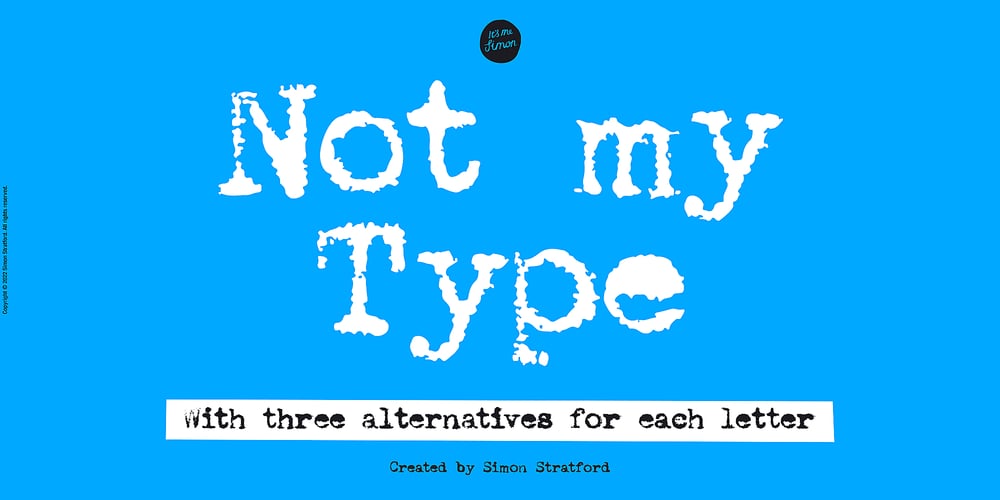
Not My Type
Not My Type font
Not My Type Font Family was designed by Simon Stratford and published by It’s me Simon. Not My Type contains 1 styles and family package options. If you want your design to have that nostalgic typewriter effect, Not my Type would be perfect. It’s old-fashioned and retro—letters are worn and grungy like it needs a new ink ribbon. Some of the letters are misaligned—just like a real old typewriter.It is best used at smaller sizes, perfect for logos, headlines, covers and any design where you want that vintage look and feel.Each letter has two alternatives, making three in total. Using the alternative letters, you can make your type layouts look more random, like a real typewriter.You can manually set the alternatives via the glyphs panel in your design software or you can enable them automatically. If you enable contextual alternatives in your design application, the letters will change automatically as you type.